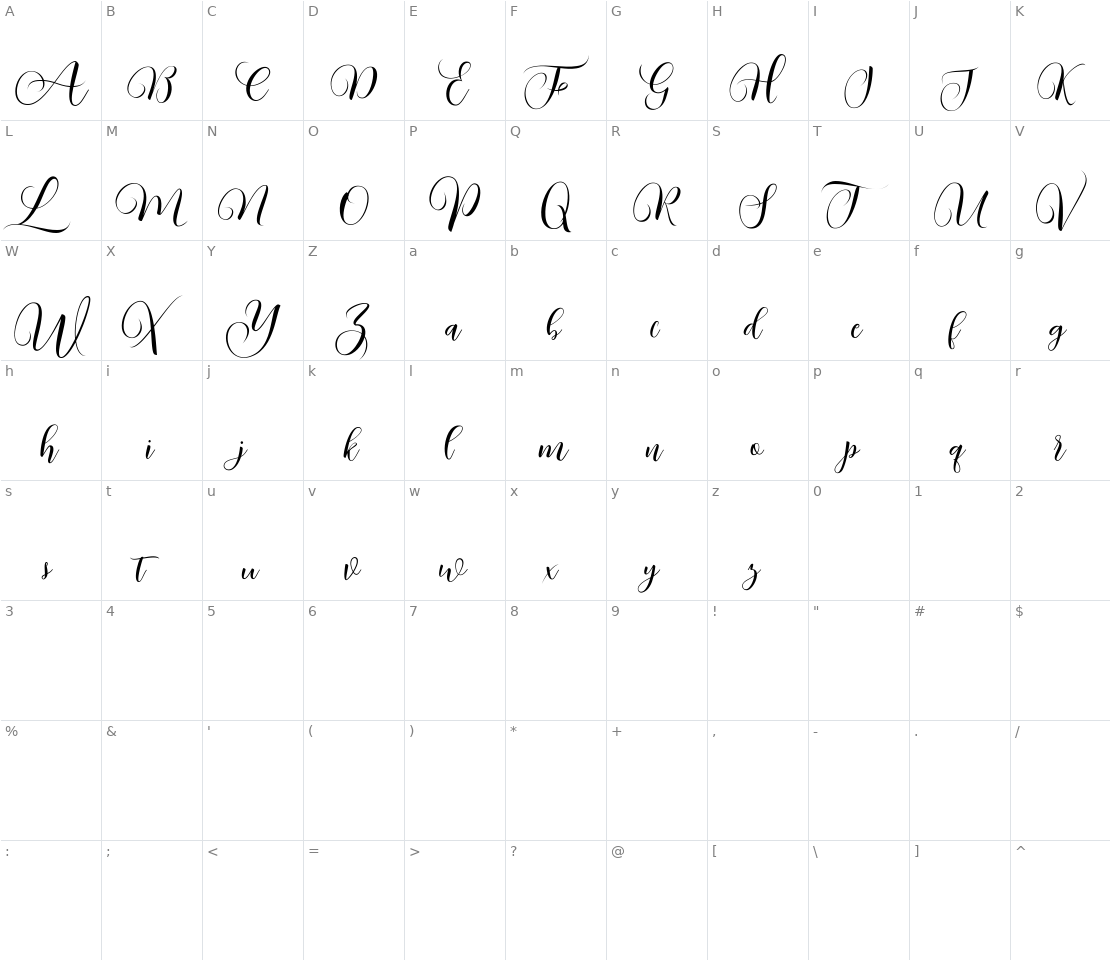
Kimberly
Kimberly is an elegant calligraphic script from Rachma BT with flowing flourishes and a distinctly romantic sensibility. The letterforms have a refined, feminine quality that feels hand-penned with a pointed nib, making it a natural choice for wedding invitations, event stationery, and formal branding where graceful detail matters. It carries enough decorative personality to stand on its own as a headline or monogram without needing much else around it.